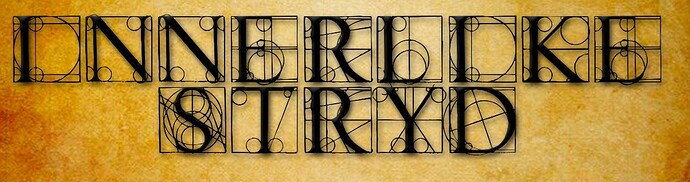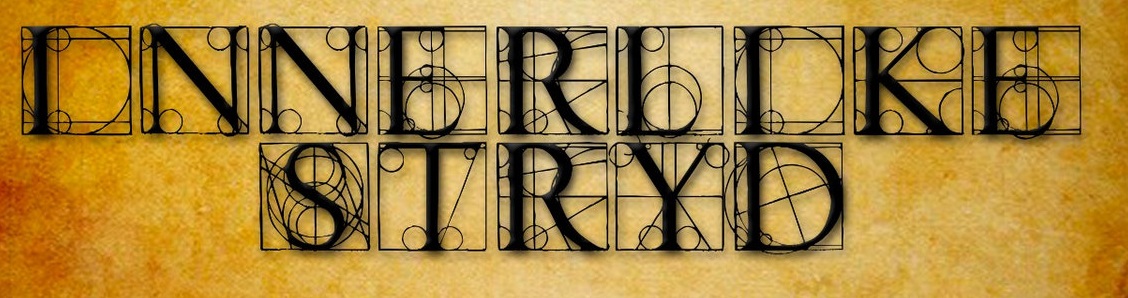
Places to look: “constructed capitals” or “constructed Roman capitals” Google search. Also search for Albrecht Durer capitals and Manfred Klein Codex styles. There are lots of them, but not these exact letters.